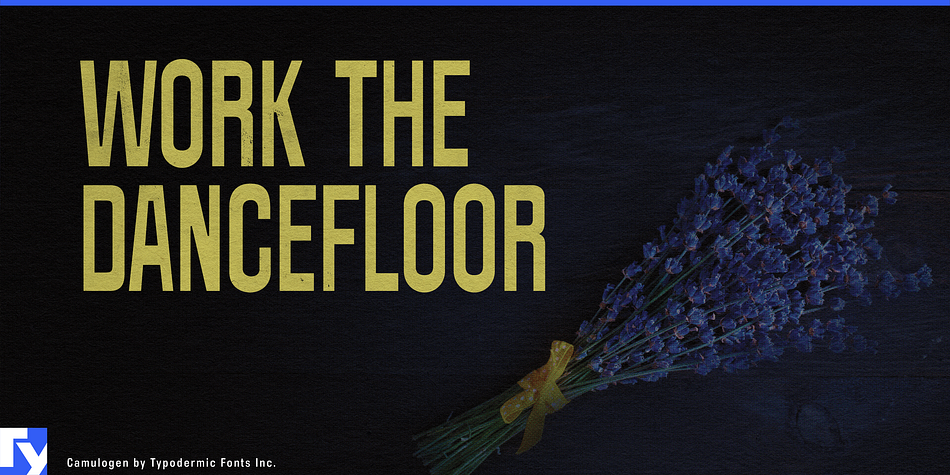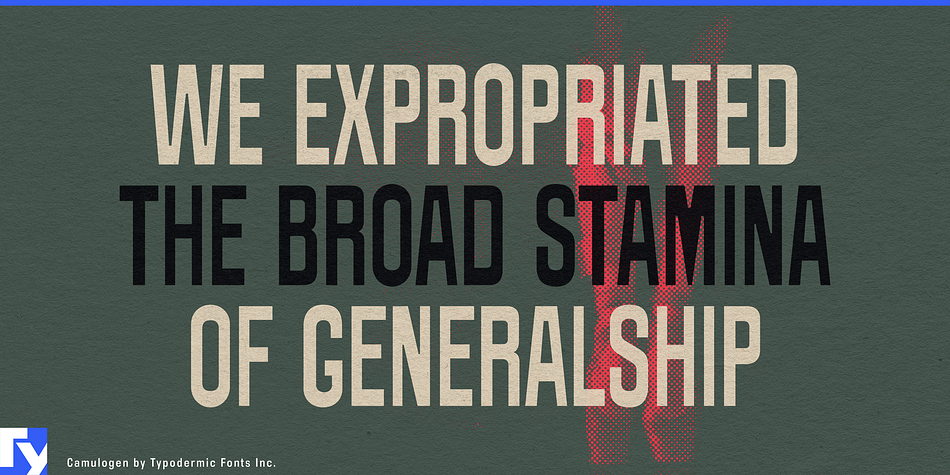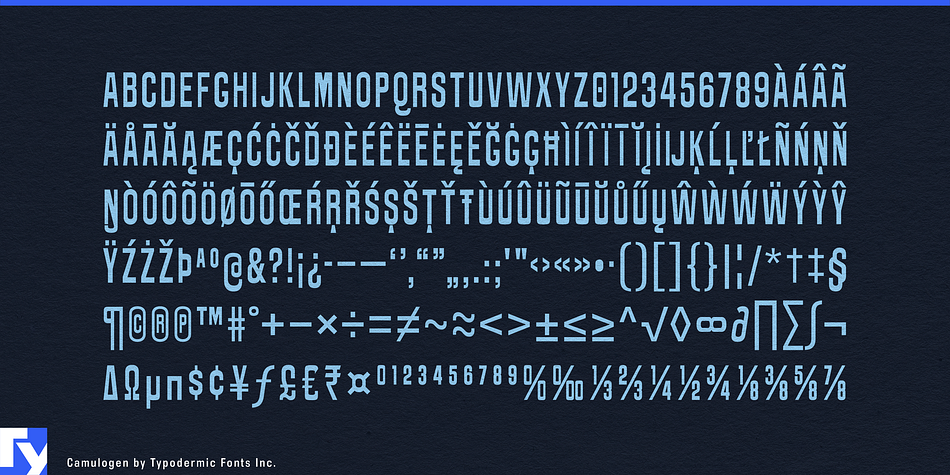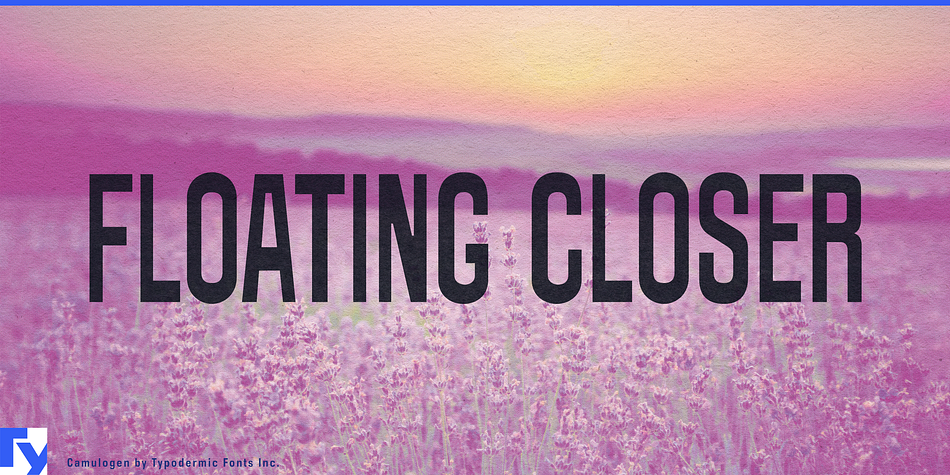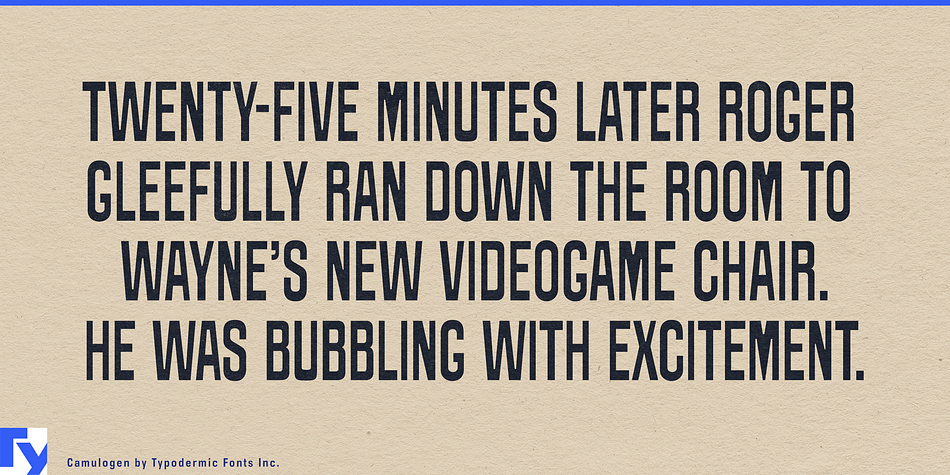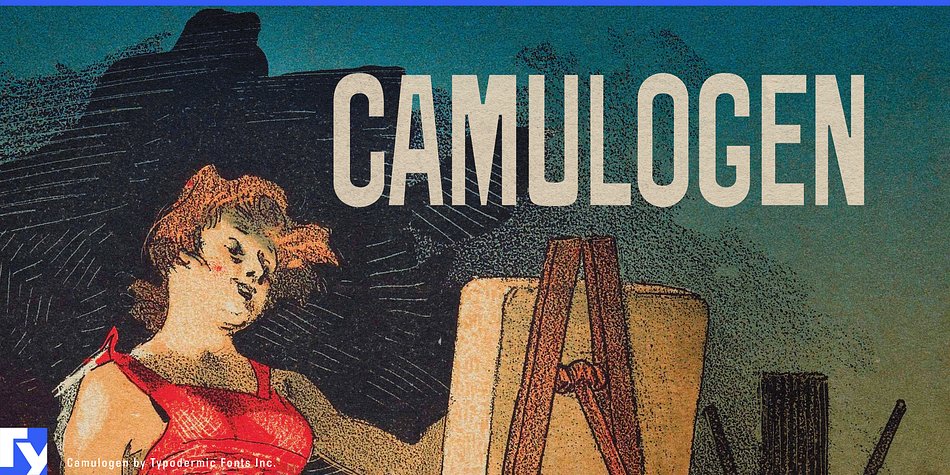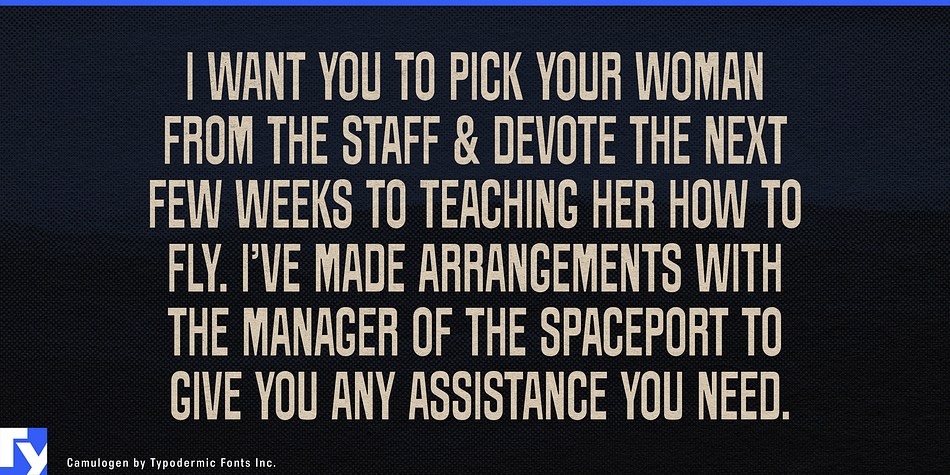
Camulogen is a display sans font published by Typodermic Fonts Inc.
Camulogen is a booming headline typeface inspired by late nineteenth century poster designs. Its full-bodied, rugged forms are designed to grab maximum attention.